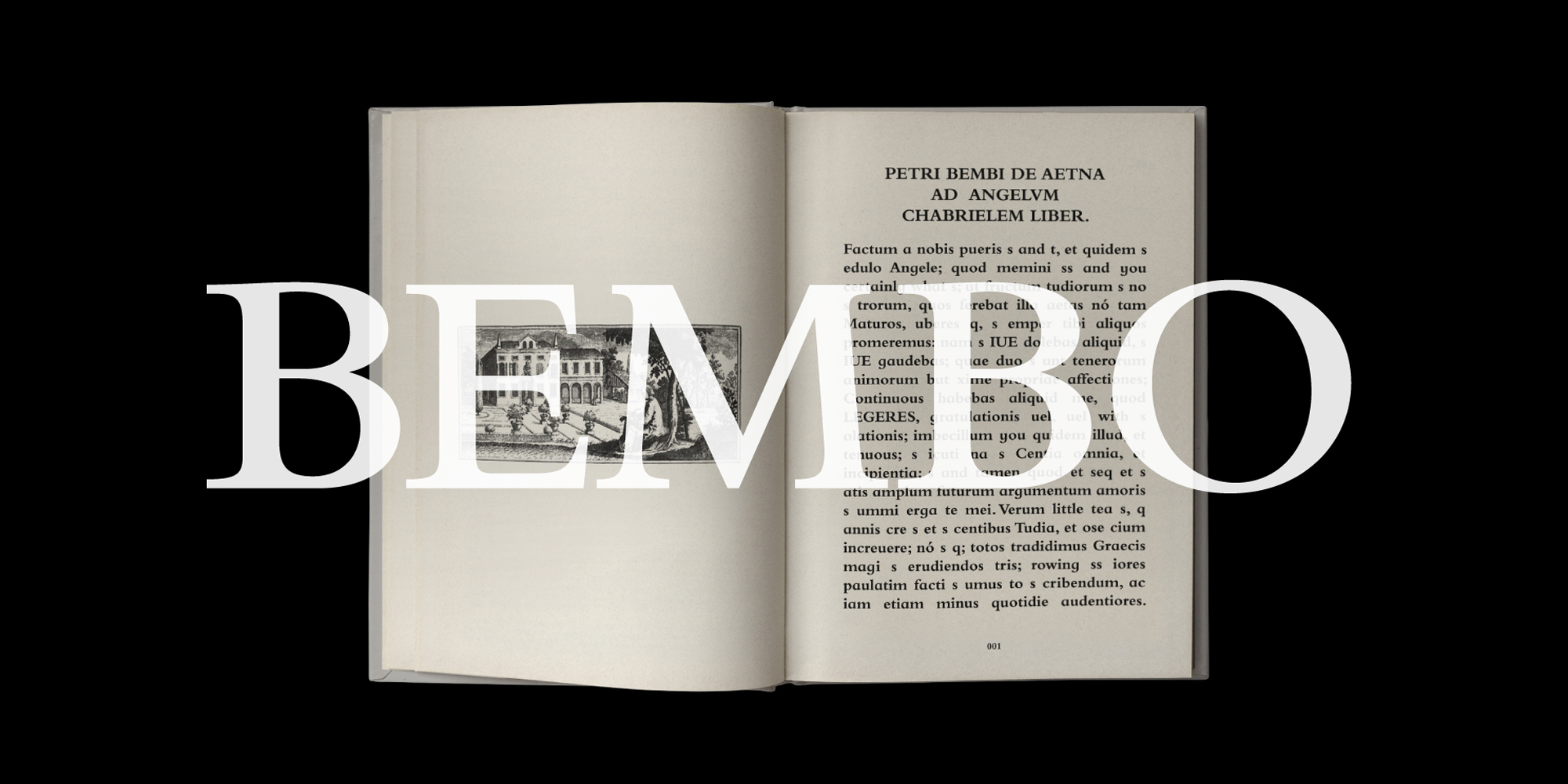
Bembo MT Font is ideal for fine literature publishing, academic textbooks, scholarly journals, classic poetry collections, historical manuscripts, university press publications, cultural heritage materials, and elegant editorial designs requiring exceptional readability.
What makes Bembo MT Font exciting is its timeless Renaissance elegance that embodies the pinnacle of humanist typography from 15th-century Venice. This distinguished typeface features graceful letterforms inspired by the work of Francesco Griffo and Aldus Manutius, combining classical proportions with exceptional legibility that has made it a beloved choice for literary publishing for over five centuries.
The Bembo MT Font family includes regular, italic, and bold weights, plus expert sets with small capitals, oldstyle figures, and classical ligatures that enhance the humanist aesthetic with authentic Renaissance typographic traditions and scholarly refinements.
This legendary typeface delivers unparalleled reading comfort and literary distinction, making Bembo MT Font Free Download an essential resource for prestigious publishing and academic institutions. The font's humanist character brings immediate scholarly credibility and literary sophistication to any editorial project. Publishers of fine literature and academic presses particularly treasure its ability to provide effortless reading experiences while conveying intellectual authority and cultural refinement. The masterfully crafted letterforms ensure optimal legibility across all formats, from intimate poetry chapbooks to comprehensive scholarly editions. Whether you're producing award-winning literature or developing materials for prestigious cultural organizations, this font provides the perfect combination of Renaissance heritage and contemporary publishing excellence. Creative professionals consistently choose this typeface for projects requiring that ideal balance of classical elegance and superior readability, making it indispensable for high-quality literary and academic communications.